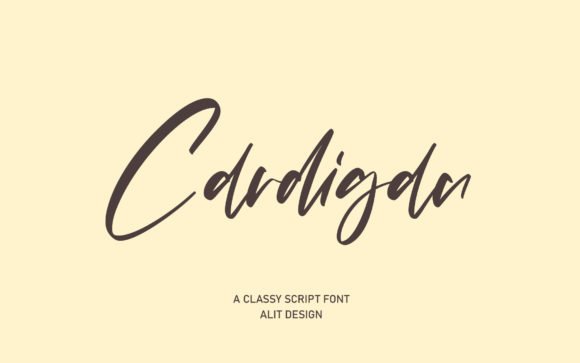
Embracing the Timeless Charm of Cardigan Font
Have you ever found yourself in a moment of pure creative bliss, where the words flow effortlessly onto the page and your design begins to take shape? That’s exactly what happens when you fall in love with the Cardigan Font. This elegant, flowing handwritten font adds an unmistakable touch to your projects, making them truly stand out from the crowd.
Whether you’re a seasoned designer or just starting out, the Cardigan Font is the perfect addition to your toolkit. Its timeless style ensures that your designs remain relevant and captivating, even as trends come and go. By incorporating the Cardigan Font into your work, you can elevate your creations to new heights and leave a lasting impression on your audience.
Key Features of Cardigan Font
- Unique Characteristics: Cardigan Font features a distinctive, handwritten style with subtle flair and movement, giving it a personal and expressive feel.
Cardigan Font Review
Overall, I think the Cardigan Font is a solid choice for designers looking for a friendly, approachable typeface. Here are some of its strengths:
- ✨ Friendly and approachable feel: The Cardigan Font has a very welcoming and approachable quality that makes it perfect for websites, apps, and other digital products.
- ✨ High-quality glyphs: The font’s glyphs are well-crafted, with attention to detail that ensures readability and consistency.
- ⚠️ Limited expressiveness: While the Cardigan Font is great for everyday use, it may not be the best choice for projects that require a more dynamic or expressive typeface.
- ⚠️ Not ideal for small text: The font’s x-height can make it difficult to read in smaller sizes, so be mindful of this when using it for body text.
Overall, I think the Cardigan Font is a great choice for designers who want a solid, reliable typeface that gets the job done. While it may not be the most exciting or expressive option, it’s a great all-around choice for everyday use.
Practical Application Guide for Cardigan Font
Tips for Getting the Most Out of Cardigan Font
For optimal results, pair Cardigan Font with a clean and simple design aesthetic. Avoid using too many fonts or bold colors, as this can detract from the elegance of the font. Experiment with different font sizes and styles to create visual interest and hierarchy in your design.
Cardigan Font is ideal for a variety of projects, including branding, packaging, editorial design, social media graphics, posters, infographics, presentations, reports, and documents. Its elegant and unique design makes it a great choice for creative professionals and DIY designers alike.